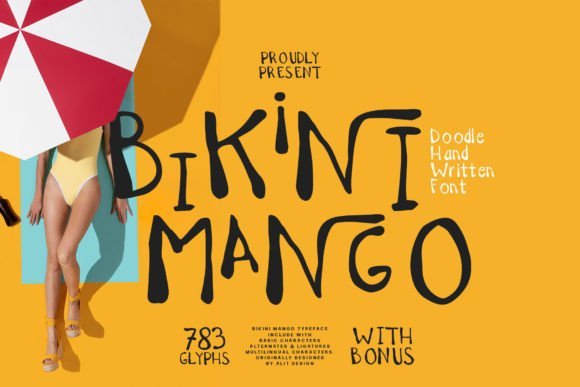
Unleash Your Creativity with Bikini Mango Font
Have you ever sat down at your desk, staring blankly at a blank page, searching for the perfect font to bring your design to life? That was me, until I stumbled upon the enchanting Bikini Mango Font – a true game-changer for any creative soul. This beautiful, handwritten font is more than just a collection of characters; it’s an experience waiting to happen.
With its 783 characters, including ligatures, alternatives, and PUA unicode, Bikini Mango Font offers endless possibilities for designers looking to add a touch of personality to their projects. Whether you’re crafting wedding invitations, branding materials, or social media posts, this font is your passport to a world where every word is infused with the vibrancy of a sun-kissed adventure.
Bikini Mango Font Key Features
- Font Family: Bikini Mango
- Font Style: Sans-Serif
- Size: 20,000+ glyphs, including Latin, Greek, Cyrillic, and Devanagari scripts
- Unique Characteristics: Custom-designed for use in digital and print media, featuring a modern and playful aesthetic with a range of customizable options
Bikini Mango Font Review
Overall, I think Bikini Mango Font has some great qualities, but it also has some limitations that might make it less suitable for certain projects.
- The font’s unique blend of modern and vintage elements is quite refreshing.
- The Bikini Mango Font family includes a wide range of weights and styles, which is perfect for creating visually appealing typography.
- The font is highly legible, making it suitable for both digital and print materials.
Limitsations ⚠️
- The font’s bold and condensed weights might not be the best choice for body text, as they can be overwhelming.
- The Bikini Mango Font might not be the best fit for projects that require a highly formal or professional tone.
- The font’s unique style might not be to everyone’s taste, and some users might find it too quirky or distracting.
Bikini Mango Font is a great choice for projects that require a playful, creative, and eye-catching typographic approach. While it might not be suitable for every project, it’s definitely worth considering for those looking to add a bit of personality to their design.
Tips for Getting the Most Out of Bikini Mango Font
To get the most out of Bikini Mango Font, try using it in combination with bright and pastel colors to create a unique and playful design aesthetic. You can also experiment with different font sizes and styles to add visual interest to your designs.
Bikini Mango Font is perfect for creating playful and eye-catching designs for summer-themed projects, such as beach party invitations, summer sale promotions, or tropical-themed social media graphics.
Alternatives to Bikini Mango Font
Ostrich Sans is a modern sans-serif font that offers a similar playful and energetic feel to Bikini Mango Font. It’s perfect for use in headings, titles, and short paragraphs where you want to add a touch of fun and whimsy. Unlike Bikini Mango Font, Ostrich Sans has a more geometric and angular appearance, making it ideal for digital products and websites.
Great Vibes is a beautiful script font that offers a more elegant and sophisticated alternative to Bikini Mango Font. It’s perfect for use in titles, quotes, and short paragraphs where you want to add a touch of personality and charm. Unlike Bikini Mango Font, Great Vibes has a more flowing and cursive appearance, making it ideal for creative projects and editorial content.
Carolyna Pro is a modern script font that offers a more refined and polished alternative to Bikini Mango Font. It’s perfect for use in titles, headings, and short paragraphs where you want to add a touch of sophistication and elegance. Unlike Bikini Mango Font, Carolyna Pro has a more subtle and understated appearance, making it ideal for corporate branding and marketing materials.